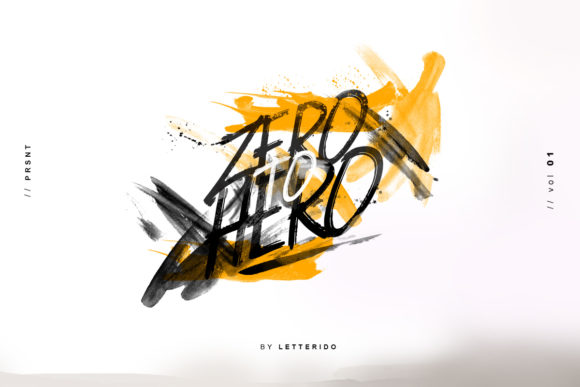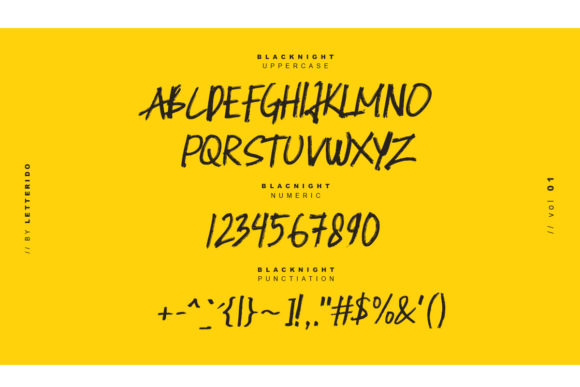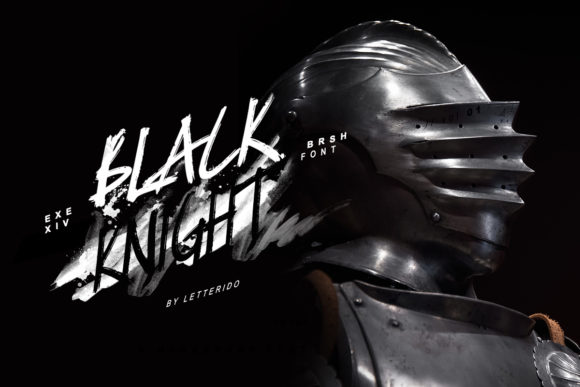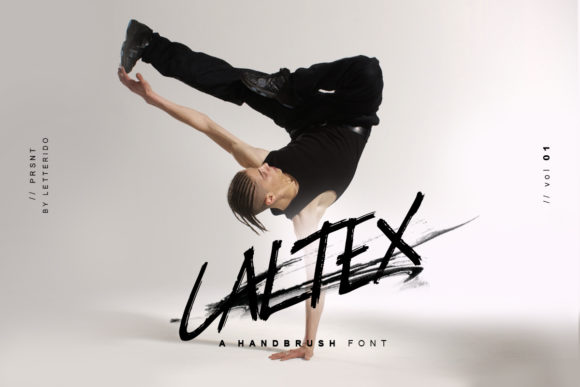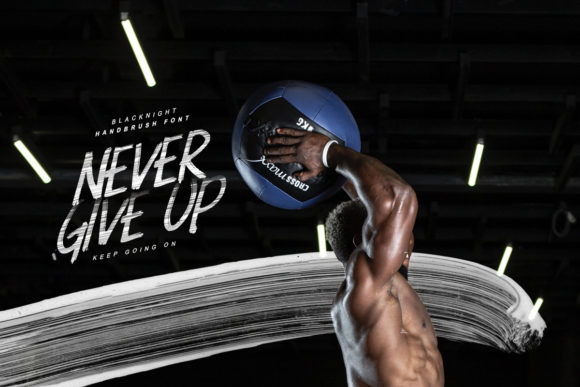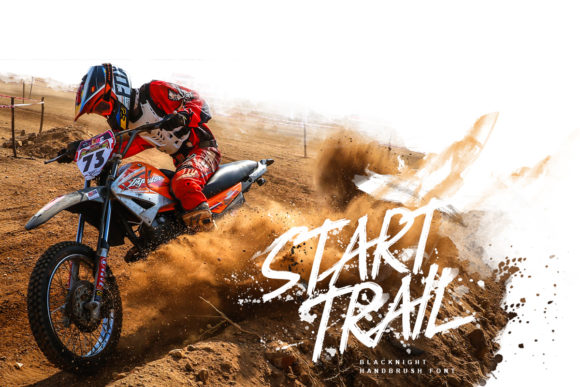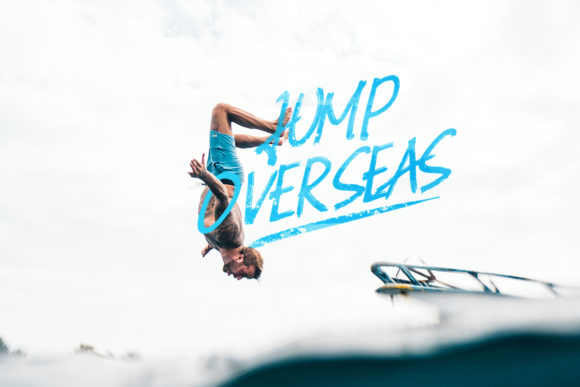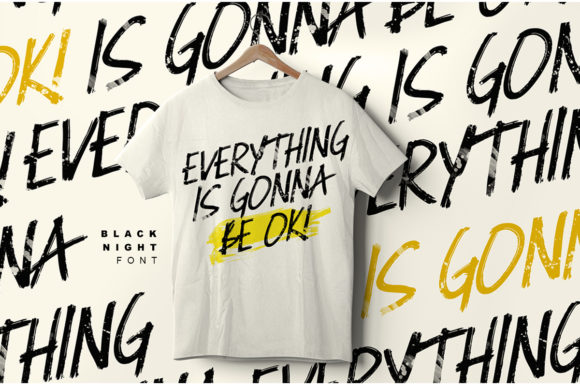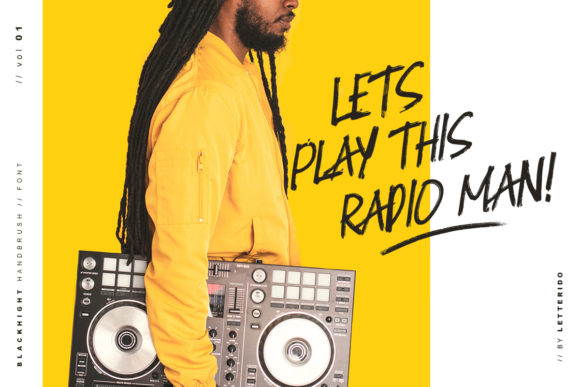
HomeScript FontsBlacknight Font Script Fonts Blacknight Font FacebookXPinterestWhatsApp Blacknight Font Poster 2 Blacknight Font Poster 3 Blacknight Font Poster 4 Blacknight Font Poster 5 Blacknight Font Poster 6 Blacknight Font Poster 7 Blacknight Font Poster 8 Blacknight Font Poster 9 Blacknight Font Poster 10 About Blacknight Font Blacknight is a fun and elegant script with a powerful feel. Get inspired by its authentic vibe! DOWNLOAD ON CREATIVE FABRICAThis font is sold and delivered by Creative Fabrica. Font Canyon may earn a commission if you buy through this link. People also explored Sagittaria Font Butterfly Font Tea Cup Font Raissey Font Impact Font Hello Rainbow Font Anastasya Font Pumpkin Story Font Candyland Font 335 0 TagsBlacknight Font Previous articleBlackburn FontNext articleRyna Font LEAVE A REPLY Cancel reply Comment: Please enter your comment! Name:* Please enter your name here Email:* You have entered an incorrect email address! Please enter your email address here Website: Save my name, email, and website in this browser for the next time I comment. Personal Use Free Fontmageddon Personal Use Free Read more about this font Rollayka Personal Use Free Read more about this font Glosery Personal Use Free Read more about this font Makeba Font Personal Use Free Read more about this font BLOG How to Cut Any Font on Cricut: Convert a Font to SVG (Free) Turn any font into a clean SVG so it cuts crisp on Cricut - a quick 3-step workflow using a free font-to-SVG tool. Best Fonts for YouTube Videos: Make Your Thumbnails Stand Out Where to Buy American Fonts Online in 2024 Top 7 Google Fonts Alternatives for Faster and Privacy-Friendly Web Design (2025)